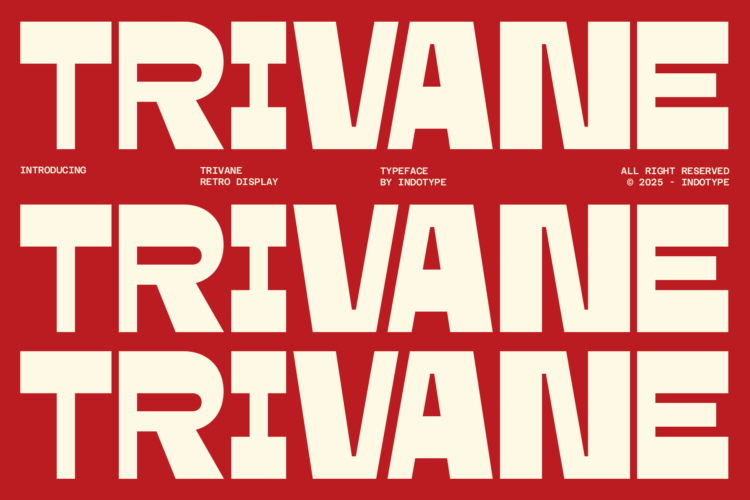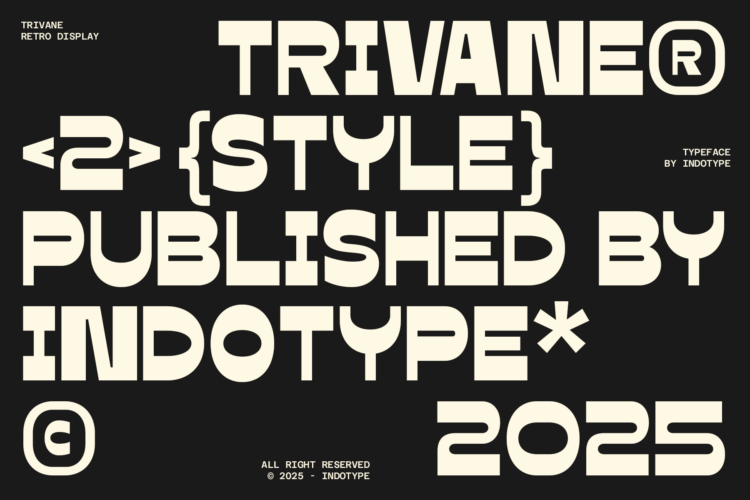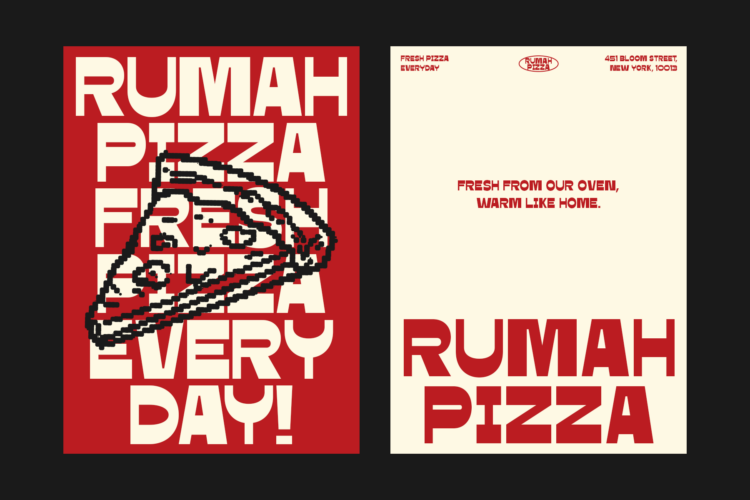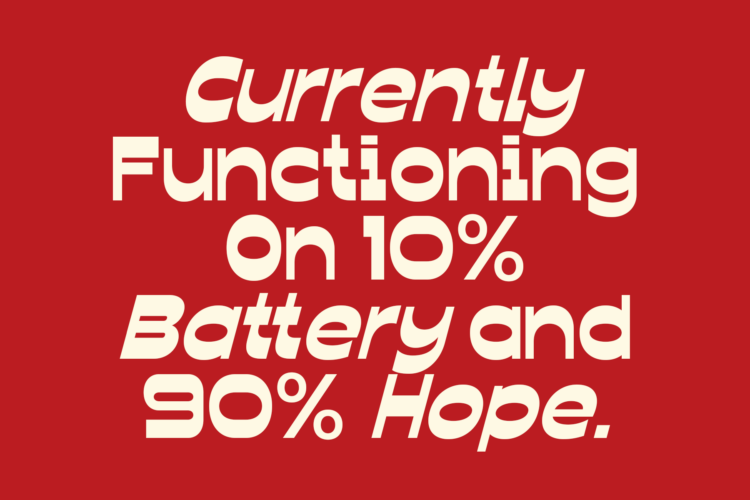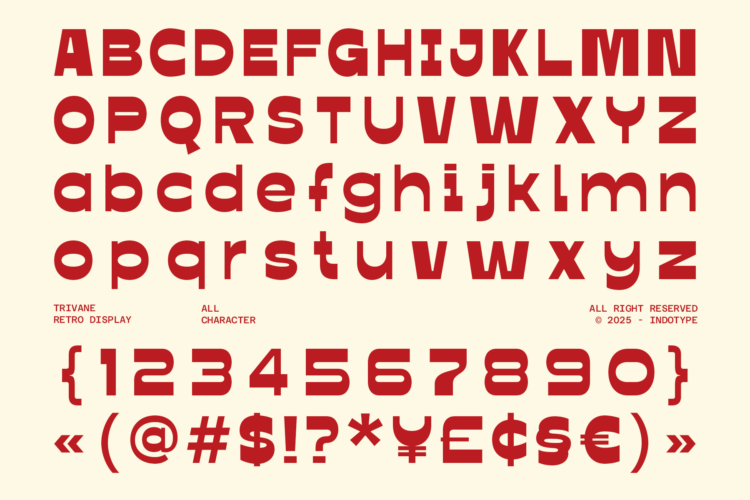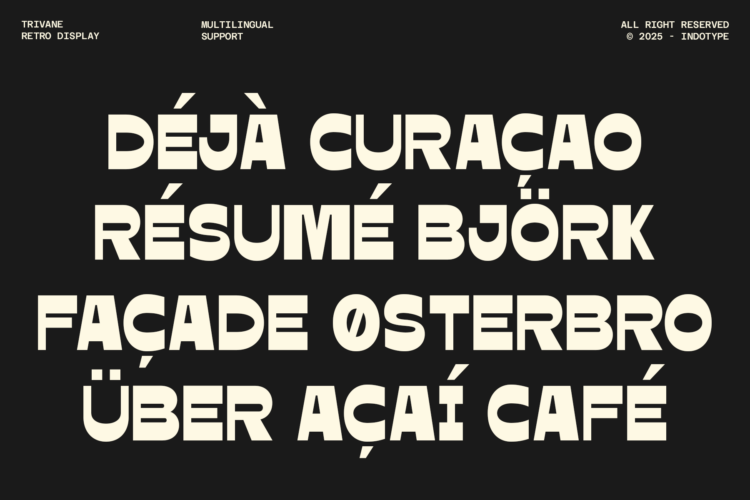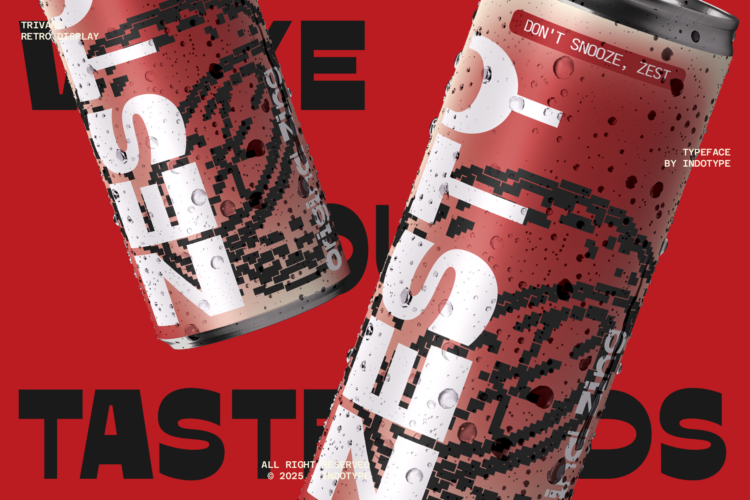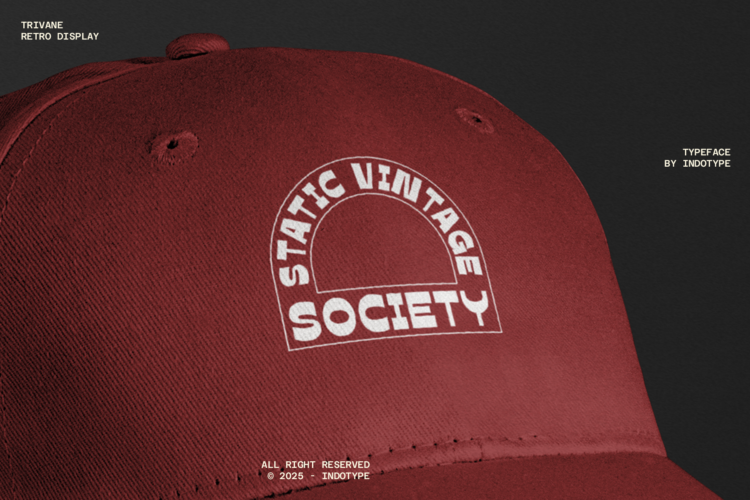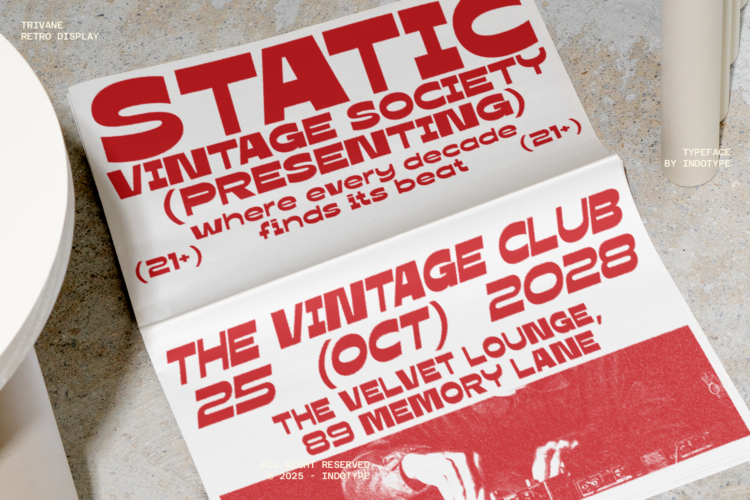
Retro_Reverse_Contrast_Font
Step into a world of retro-futurism with Trivane, a striking reverse contrast display font that commands attention. Drawing inspiration from 1970s and 80s sci-fi aesthetics, its unconventional stroke weights—thick verticals and thin horizontals—create a dynamic, energetic, and instantly recognizable personality. This is not a subtle typeface; it’s built for impact. Trivane excels in headlines, logos, posters, and any project where you need to evoke nostalgia while feeling fresh and bold. Its distinct “typerace” moniker hints at a design optimized for high-impact, short-form text, ensuring maximum legibility and style at larger sizes. Pack a visual punch and transport your audience with the unique character of Trivane.
• Ideal for: Headlines, Logotyping, Poster Design, Album Covers, Branding for Tech & Gaming, Retro-Themed Projects.
• Classification: Display, Reverse Contrast, Retro.
• Attributes: Bold, Energetic, Futuristic, Nostalgic, Attention-Grabbing.
• Standard Character A-Z, a-z, 0-9, Punctuation & symbols
• Thin, Regular, Medium, Semi Bold, Bold Weight Styles and Italic Style on Each Weight
• Multilingual Support accents and diacritics
• Including Alternate Glyphs
Trivane – Bold Retro Reverse Contrast Font